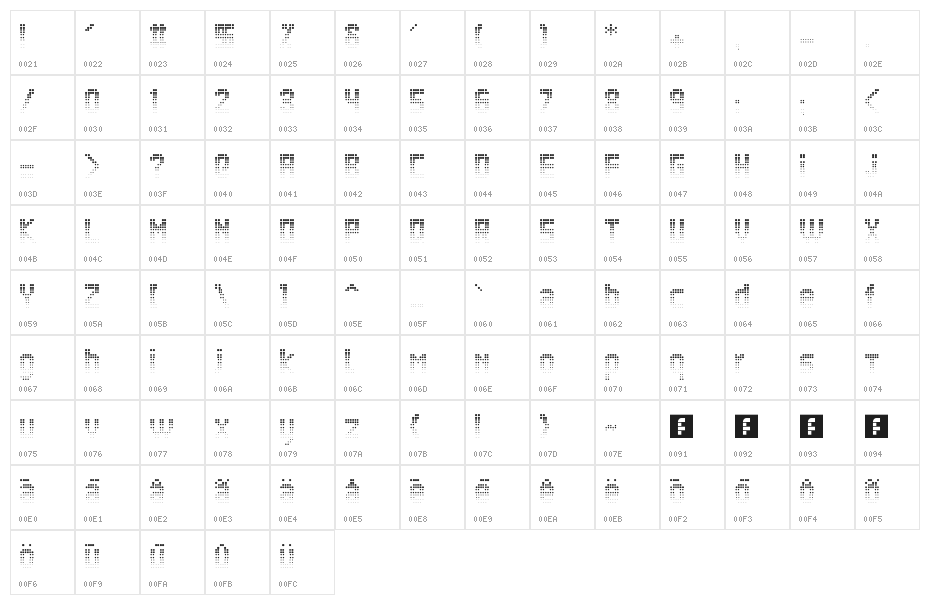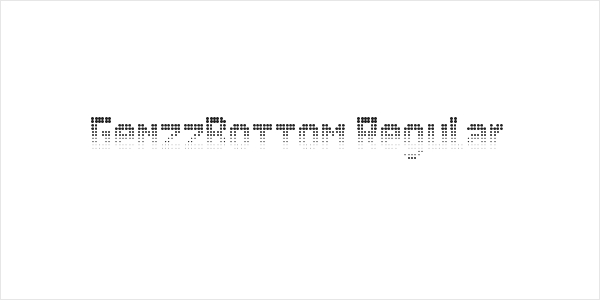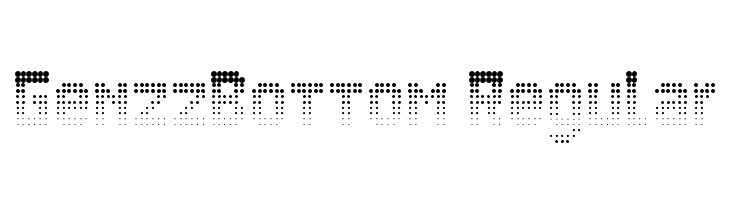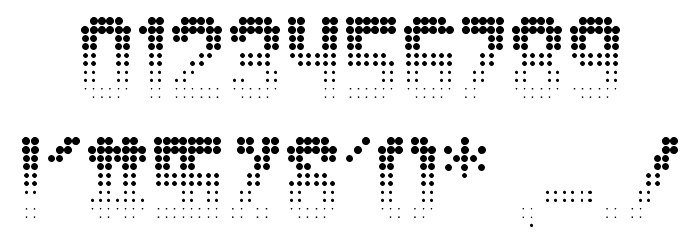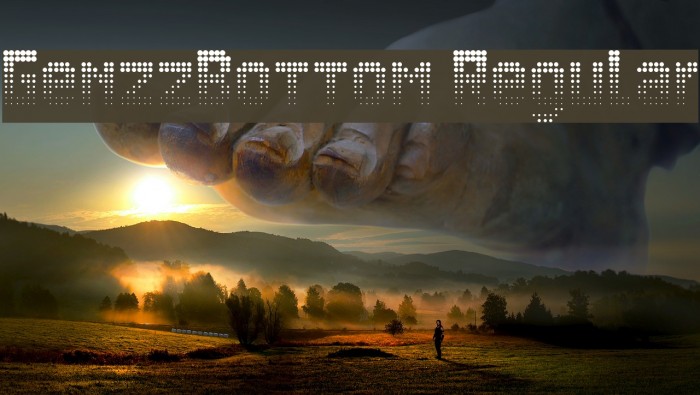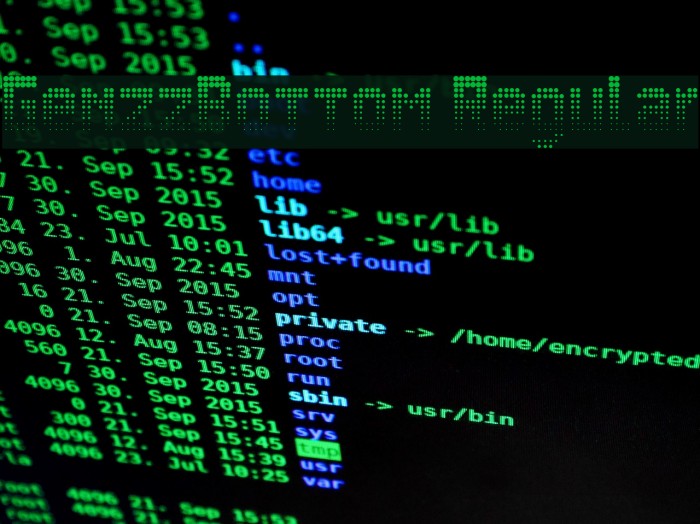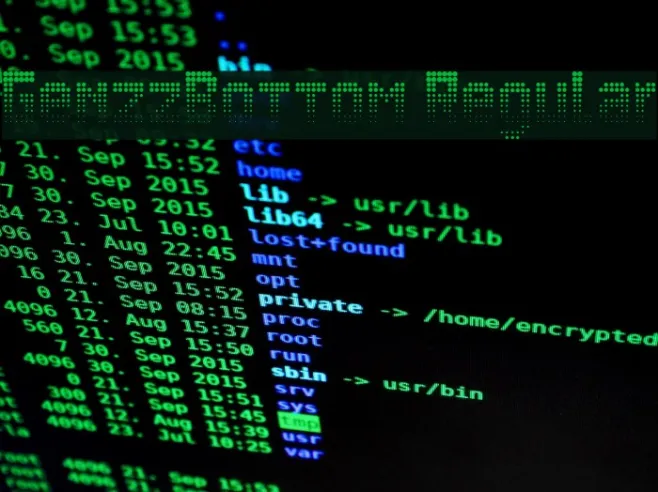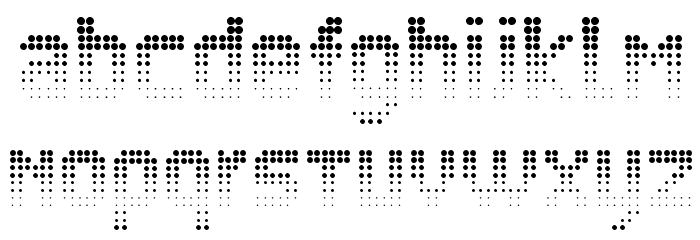
GenzzBottom Regular Font
GenzzBottom Regular Description
This font features a unique dotted design, where each character is composed of a series of small, evenly spaced dots. The style is modern and playful, offering a distinct visual appeal that stands out in digital and print media. The uppercase and lowercase letters maintain a consistent pattern, ensuring readability while adding a decorative touch. Numbers and special characters follow the same dotted motif, providing a cohesive look across all elements. This font is ideal for projects that require a fun and innovative approach, such as digital art, posters, and creative branding.
| Proposed Projects | Ideal for digital art, posters, creative branding, and innovative design projects. |